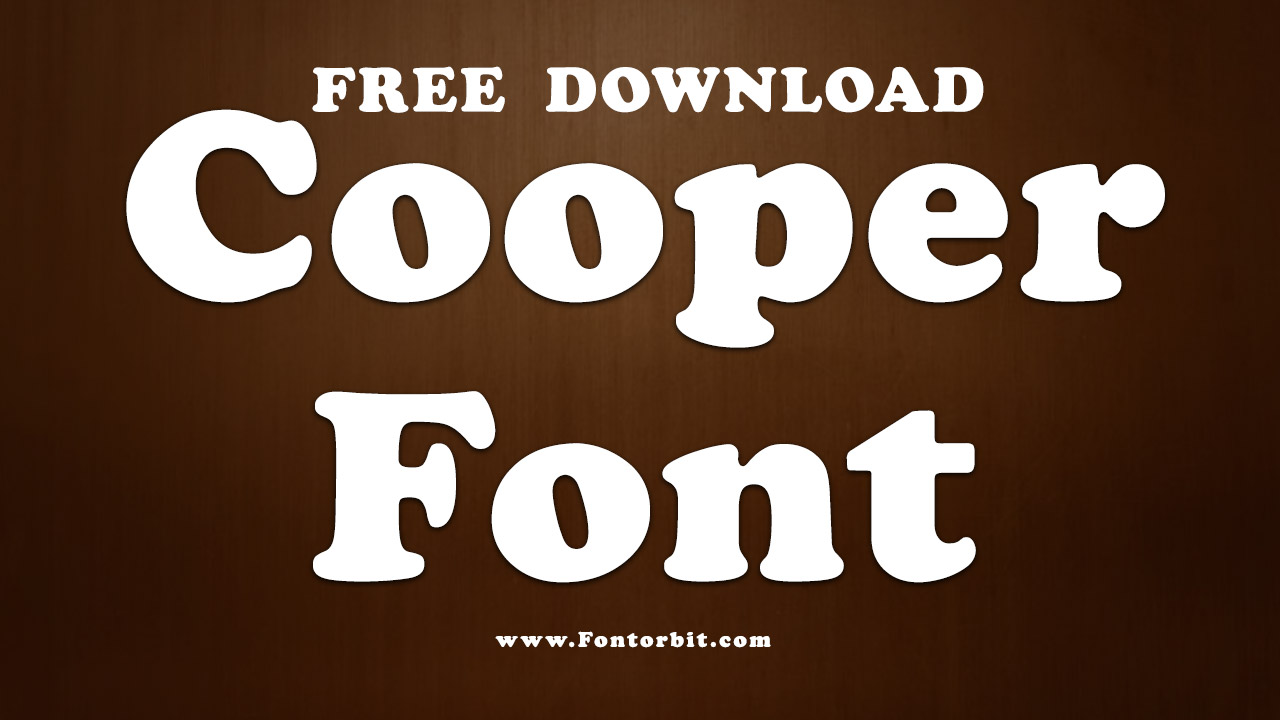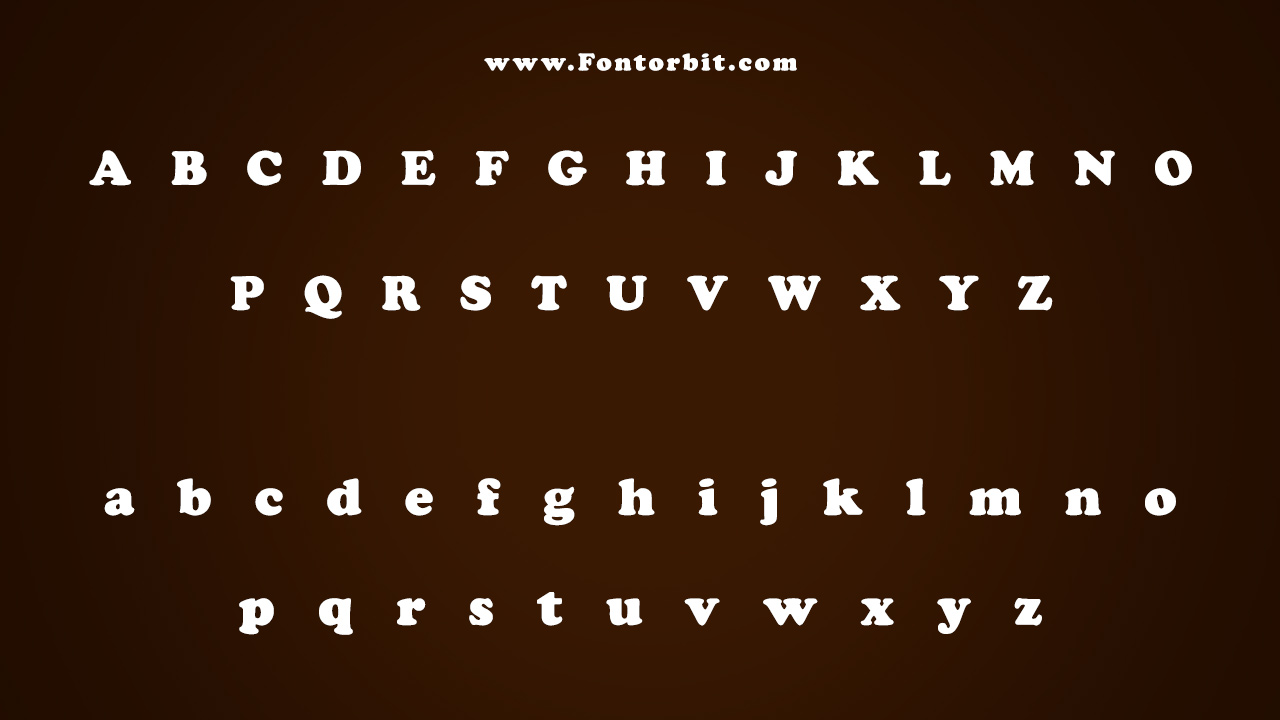
Cooper Font, designed by Oswald Bruce Cooper, is a classic rounded serif typeface first released as Cooper Old Style in 1919 and later as Cooper Black in 1922.
Renowned for its heavy, bubbly weight, Cooper Black became a hallmark of 1970s graphic design, offering a bold, eye-catching aesthetic ideal for making a statement in various creative projects. Its distinctive style is perfect for adding a touch of vintage flair to titles, headers, and promotional materials.
Cooper Font Family
- Cooper Old Style Std Light
- Cooper Old Style Std Light Italic
- Cooper Old Style Std Medium
- Cooper Old Style Std Medium Italic
- Cooper Old Style Std Demi
- Cooper Old Style Std Demi Italic
- Cooper Old Style Std Bold
- Cooper Black
The Cooper Font Found In Use
Cooper Font is widely used across various media, known for its striking visual impact. Its unique rounded serifs and heavy weight make it a popular choice for designs seeking a retro or bold look. It is commonly featured in:
- Titles
- Headers
- Promotional materials
- Packaging
- Editorial design
Cooper Font, designed by Oswald Bruce Cooper, offers a distinctive rounded serif style perfect for a variety of design applications. Its bold and vintage appearance makes it a valuable addition to any designer’s toolkit, suitable for creating impactful titles, branding, and more.
1.What Is The Cooper Font?
Cooper Font is a rounded serif typeface created by Oswald Bruce Cooper, available in two main versions: Cooper Old Style and Cooper Black.
5.What Are The Font Weights Available In The Cooper Font?
The Cooper Font family typically includes Regular and Black weights.
6.What Are The Best Practices For Using The Cooper Font In Design?
Use Cooper Font for impactful titles and headers. Ensure good readability and pair with complementary typefaces to enhance design.
7.What Are The Different Styles Available In The Cooper Font?
Styles include Cooper Old Style and Cooper Black, reflecting its rounded and heavy characteristics.
9.What Are The Design Principles Used In Creating The Cooper Font?
Design principles include boldness, legibility, and a rounded, vintage aesthetic.
10.What Are The Benefits Of Using The Cooper Font In Design?
It provides a strong visual impact, adds vintage charm, and stands out in various design applications.
11.What Is The Significance Of The Cooper Font In Design?
It represents a classic, bold typeface with historical significance, widely used for its distinctive retro style.